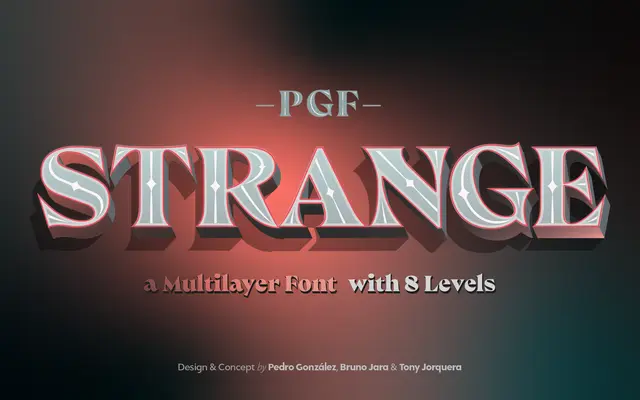
PGF-Strange
Peggo Fonts · Pedro González (graphic interpretation & production), Bruno Jara (concept)
A multilayer chromatic display face in eight decorative layers, drawing on 1970s–80s lettering traditions with sharp edges and compact proportions.
Built from eight stackable variants — Outline, Marquee, Star, Inline, Base, Vol-Shade, Volume and Shadow — the family is designed to be combined for dimensional, retro-volumetric effects in branding, packaging and headline work. Sharp edges and compact proportions give it a period flavour without tipping into pastiche. OpenType support includes stylistic alternates, old-style figures, ligatures and case-sensitive forms.
A chromatic/multilayer Roman display face with sharp edges and compact proportions, designed for stacking decorative layers to achieve volumetric and retro effects; firmly in the display category.